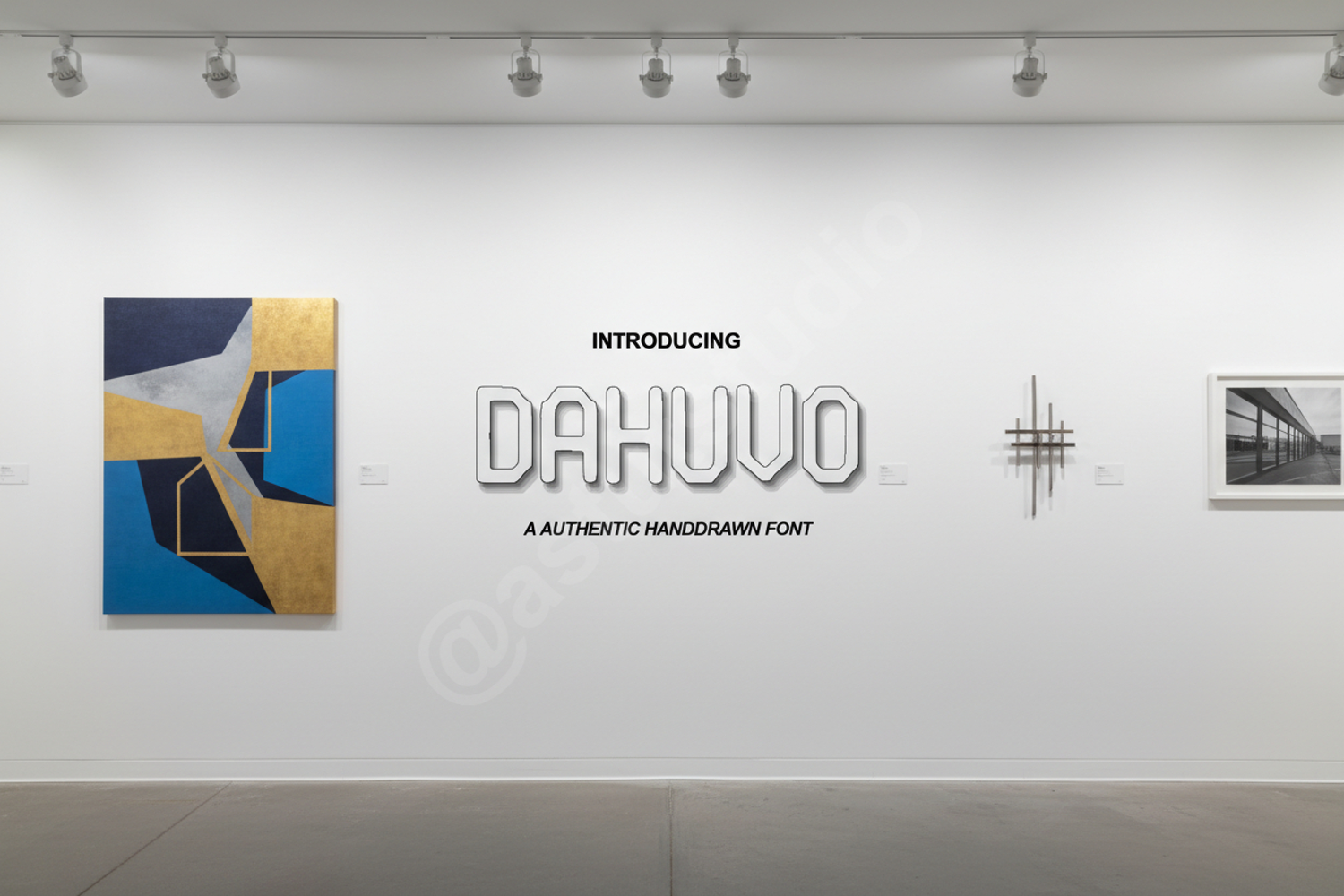
Dahuvo - Elegant Modern Display Serif
Dahuvo
Dahuvo is a premium display serif font that exudes sophistication and modern charm. Carefully crafted with clean lines and unique character shapes, this typeface is designed to elevate your creative projects to a professional level. Whether you are aiming for a minimalist look or a bold statement, Dahuvo provides the versatility needed for high-end design.
- Luxury Branding and Logo Design: Create a memorable identity for high-end brands.
- Editorial Layouts: Perfect for magazine headers, titles, and pull quotes.
- Wedding Stationery: Add a touch of class to invitations, save-the-dates, and menus.
- Social Media Graphics: Stand out with stylish and readable typography.
- Product Packaging: Enhance the visual appeal of premium product labels.